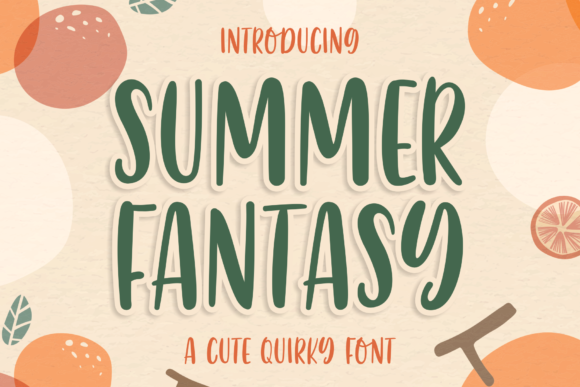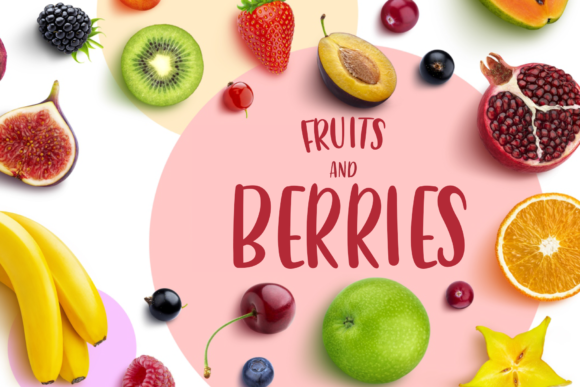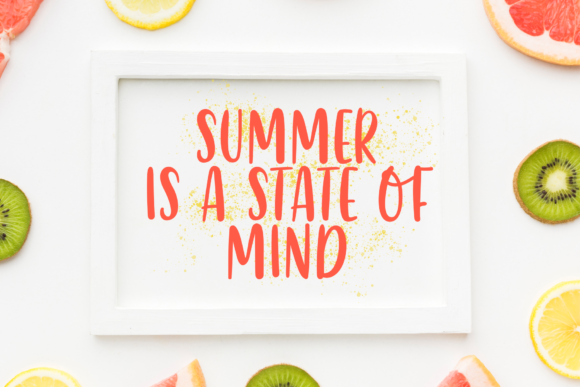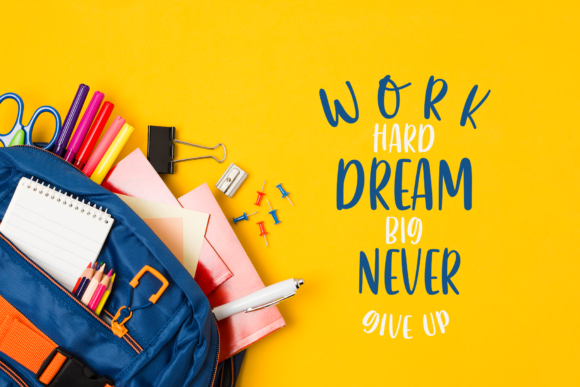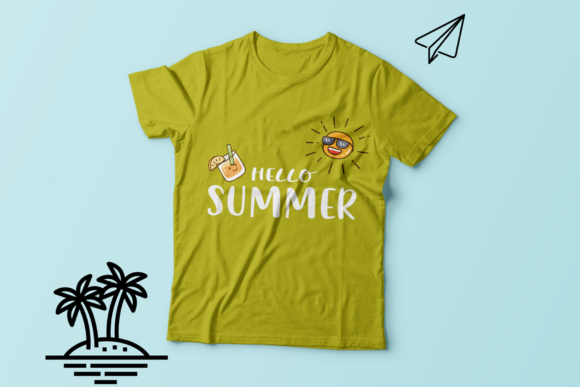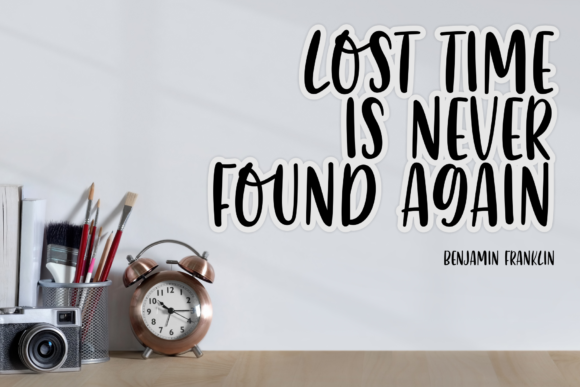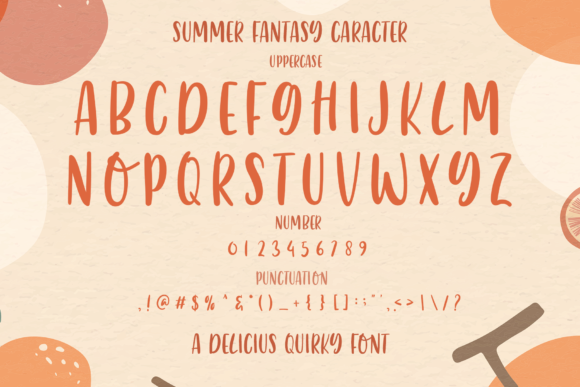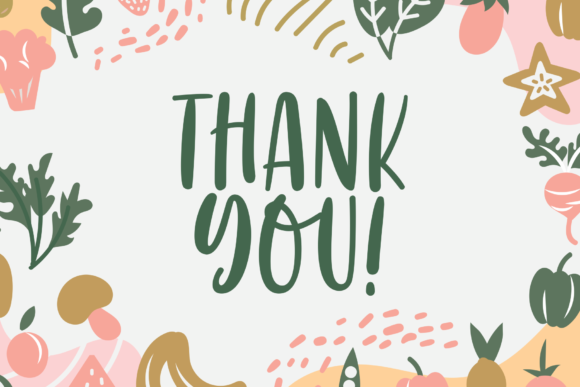
Summer Fantasy Font
About Summer Fantasy Font
Summer Fantasy is a cute and quirky font, inspired by the anticipation of summer. Use this simple and friendly font and add color to each of your favorite designs!